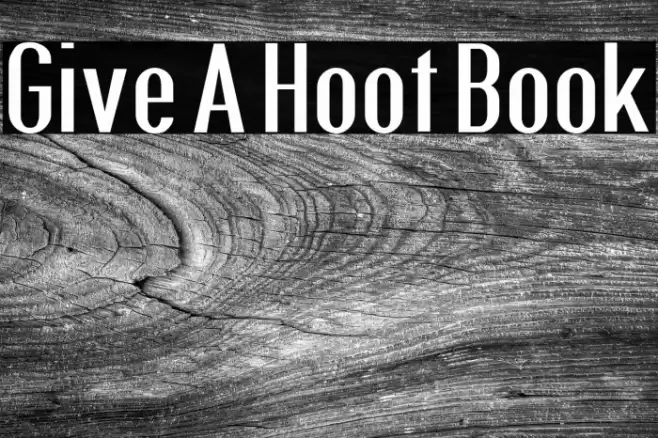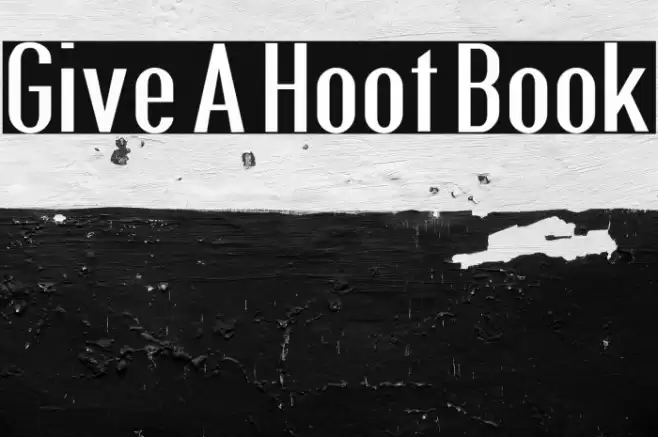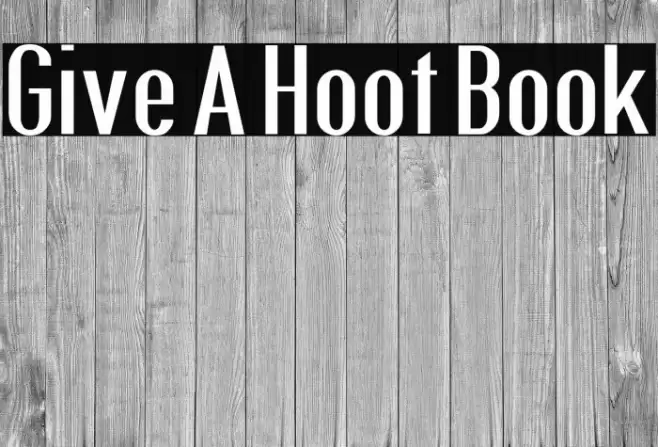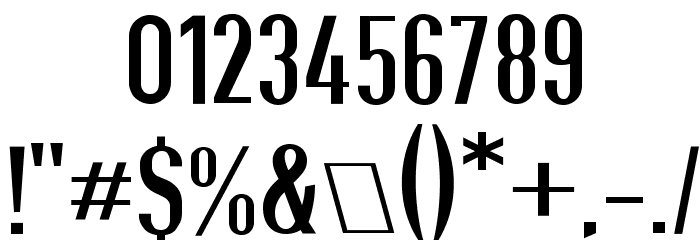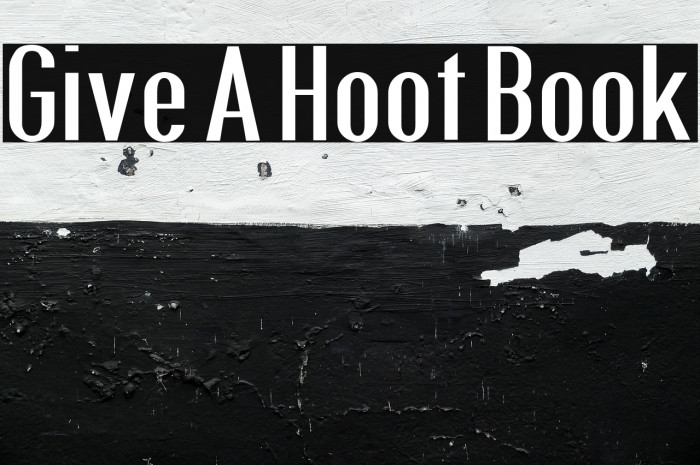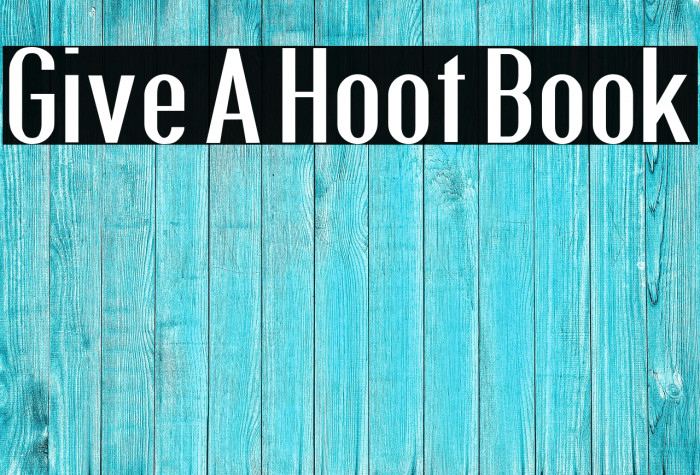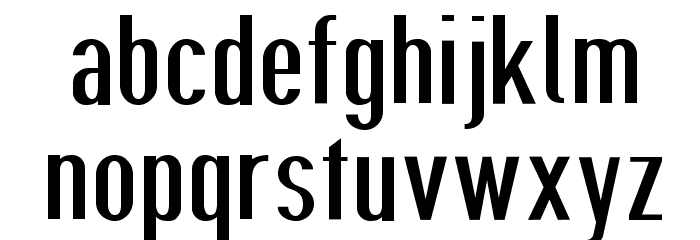
Give A Hoot Book Font
Give A Hoot Book Description
This font features a bold, modern design with a strong presence. The uppercase letters are tall and slightly condensed, giving a sleek and sophisticated look. The lowercase letters maintain a consistent style, complementing the uppercase with a slightly more rounded appearance. The numerals are clear and easy to read, matching the overall aesthetic. Special characters are well-defined, adding versatility to the font. The strokes are uniform, providing a clean and professional finish. This font is ideal for projects that require a contemporary and impactful typeface.
A bold, modern font with a sleek, slightly condensed style from Uncategorized fonts.
- Proposed Projects: Ideal for branding, advertising, headlines, and editorial design.
- Use Case: Headlines, Logos, Branding